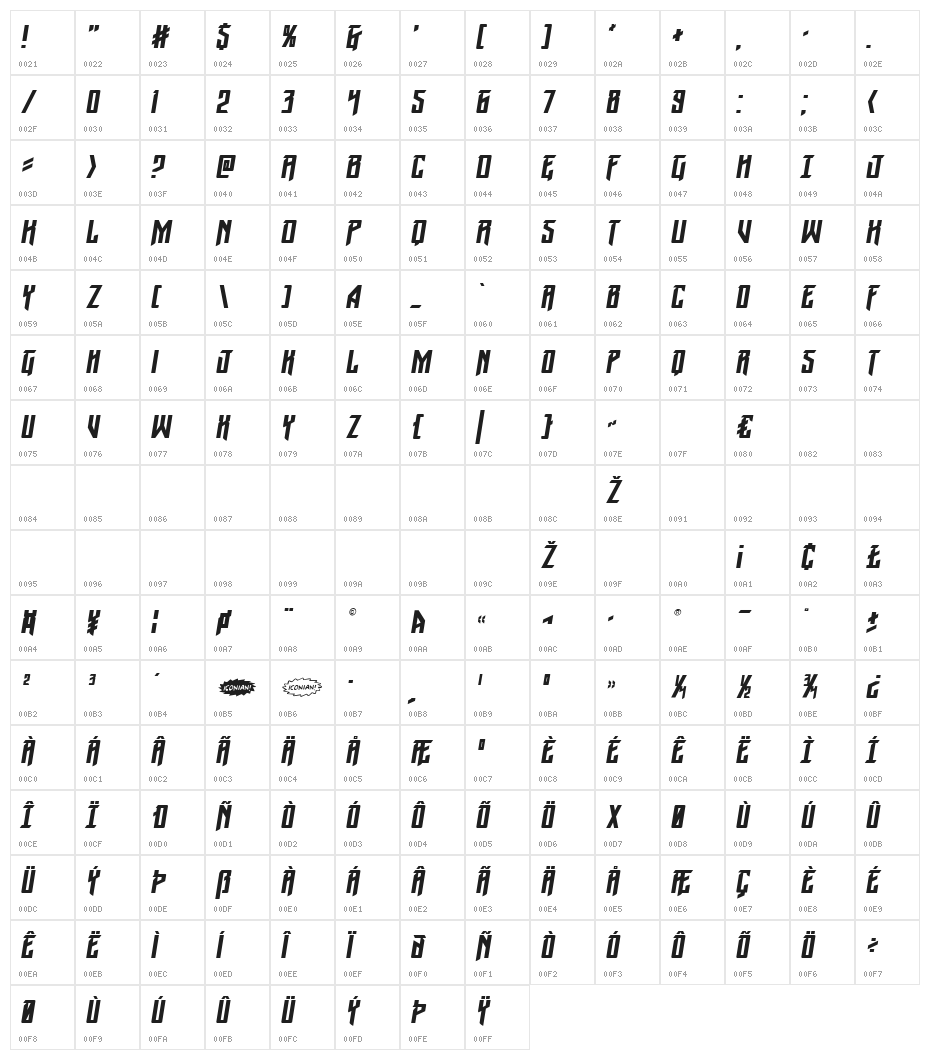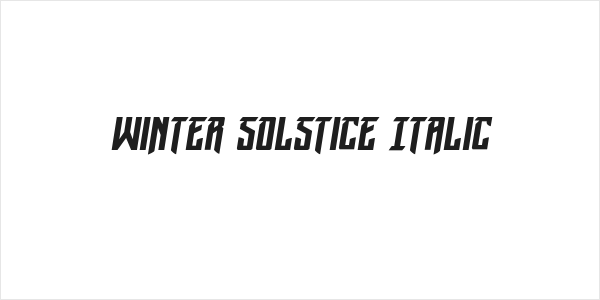
Winter Solstice Italic Font
Winter Solstice Italic Description
This font features a bold and dynamic style with sharp, angular lines and a distinct italic slant. The characters are designed with a modern, edgy aesthetic, making them stand out with their unique geometric shapes. The uppercase and lowercase letters maintain a consistent style, while the numerals and special characters complement the overall design. The font's strong presence and high contrast make it suitable for impactful visual statements.
| Proposed Projects | Ideal for branding, posters, and headlines where a strong, modern impact is desired. |